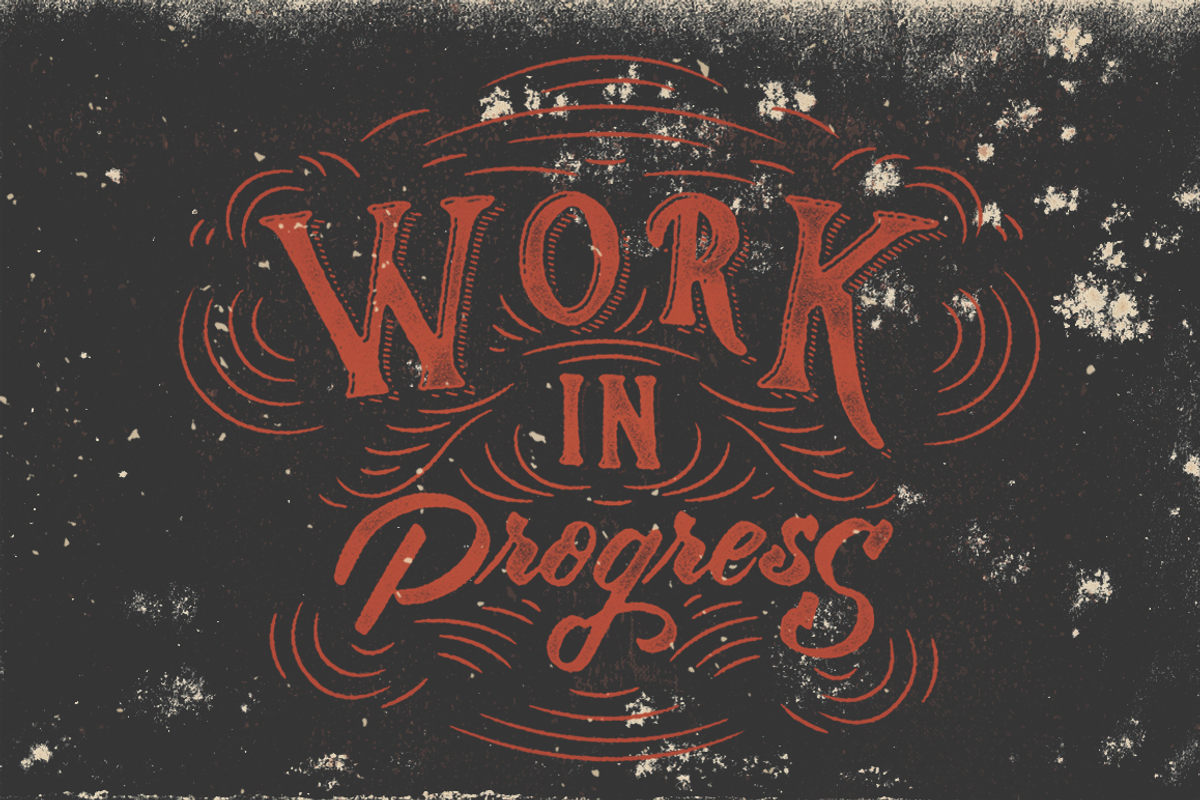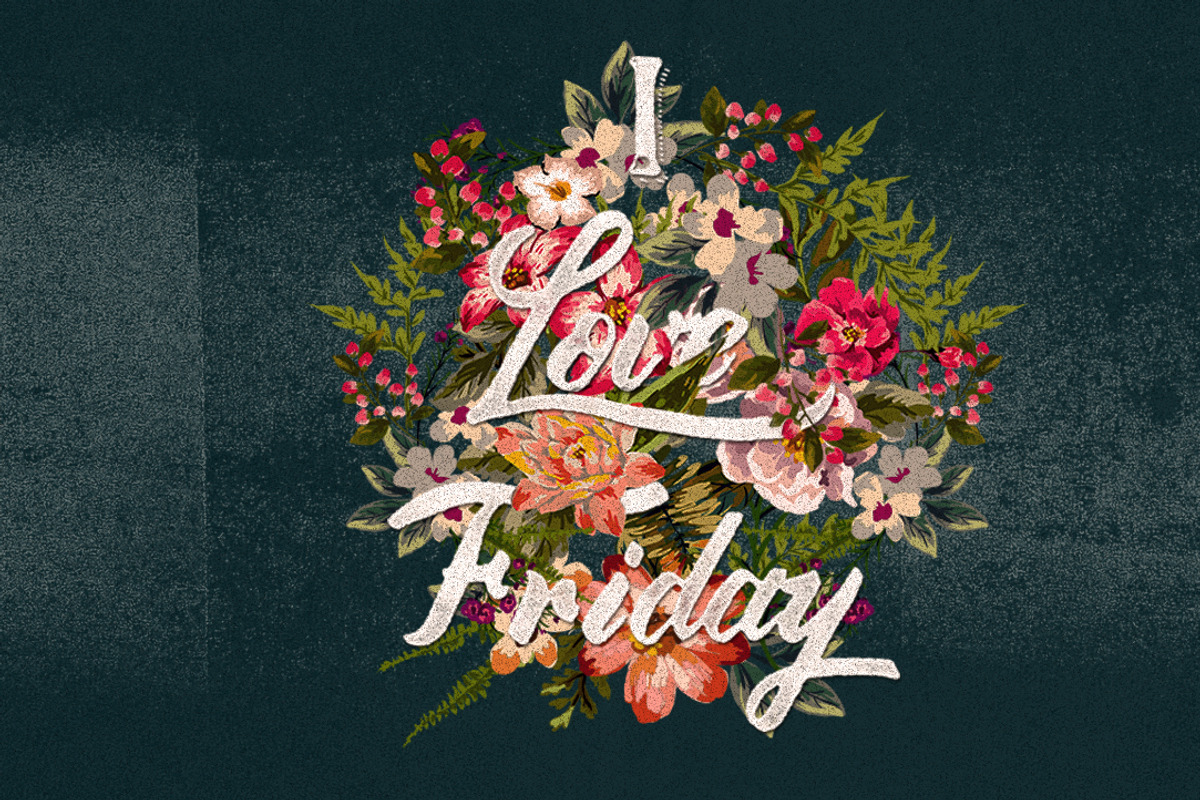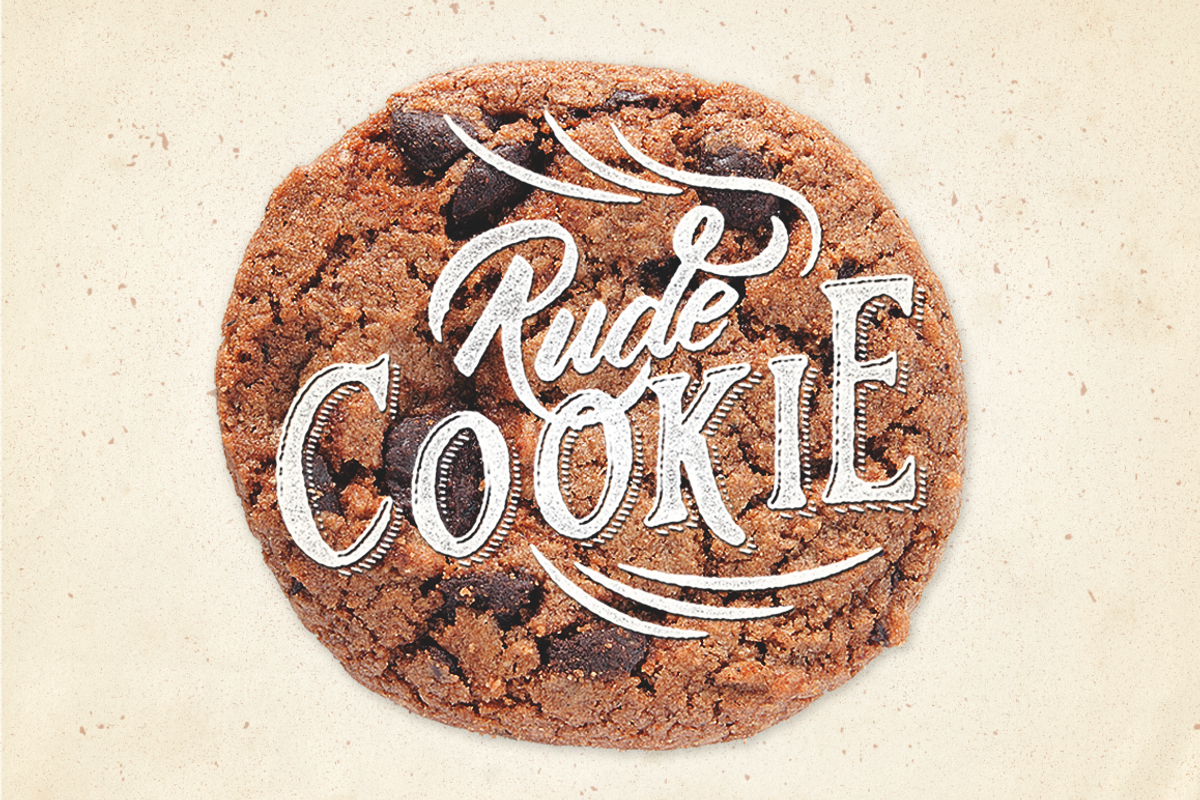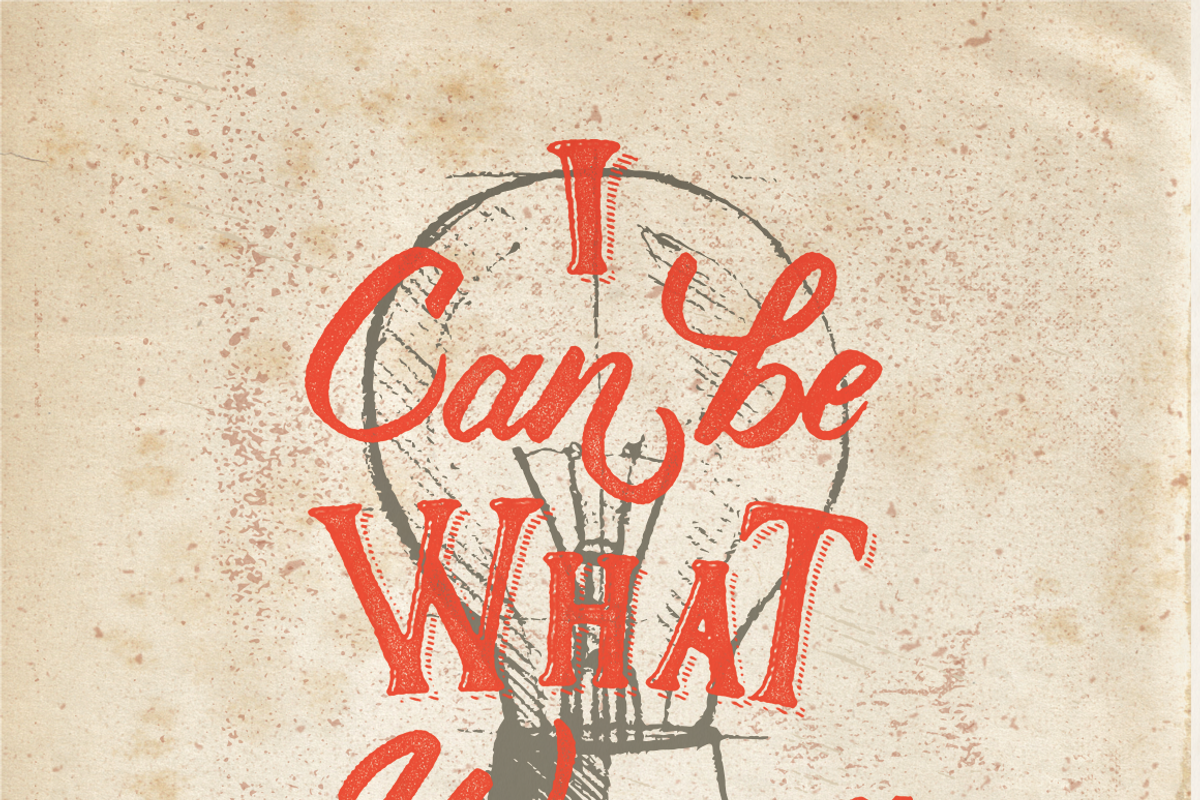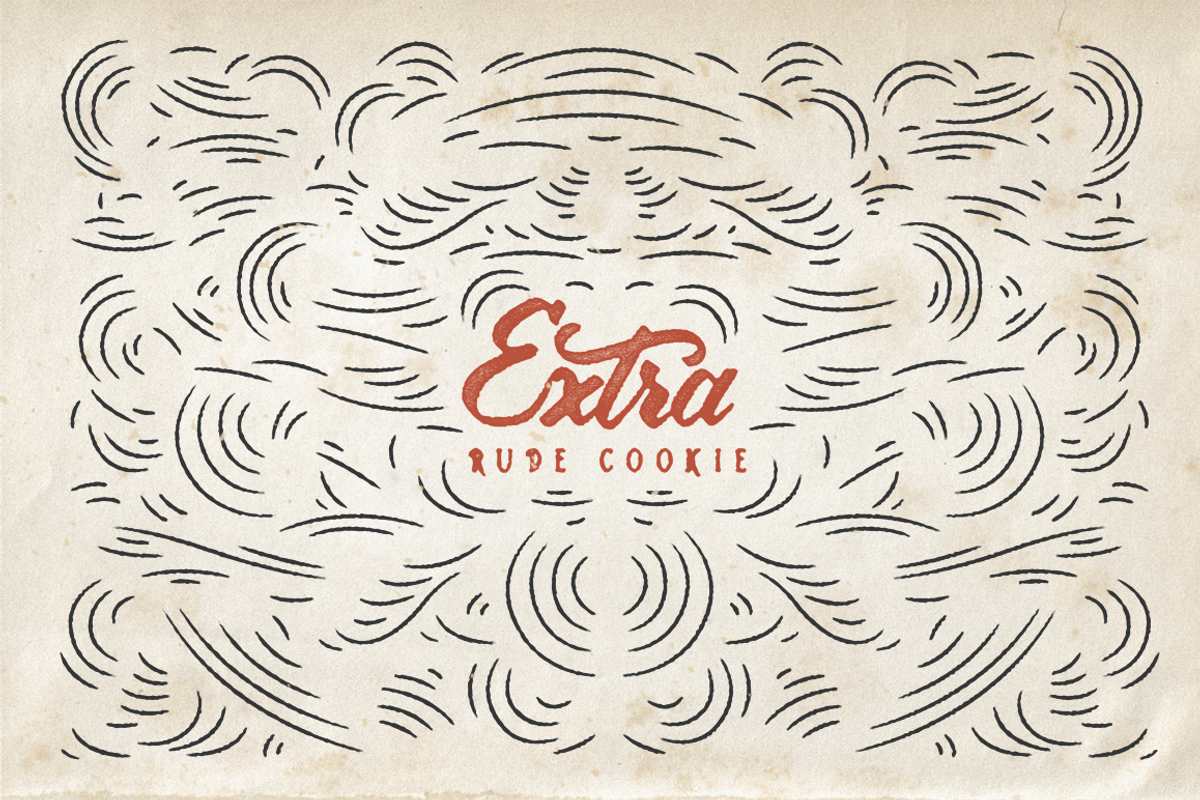
Rude Cookie Font Layer
Rude Cookie Font Layer by maghrib is a font selected for branding, posters, packaging, typography.
Why Rude Cookie Font Layer is worth a look
Rude Cookie Font Layer by maghrib fits naturally into Branding, posters, packaging, typography.